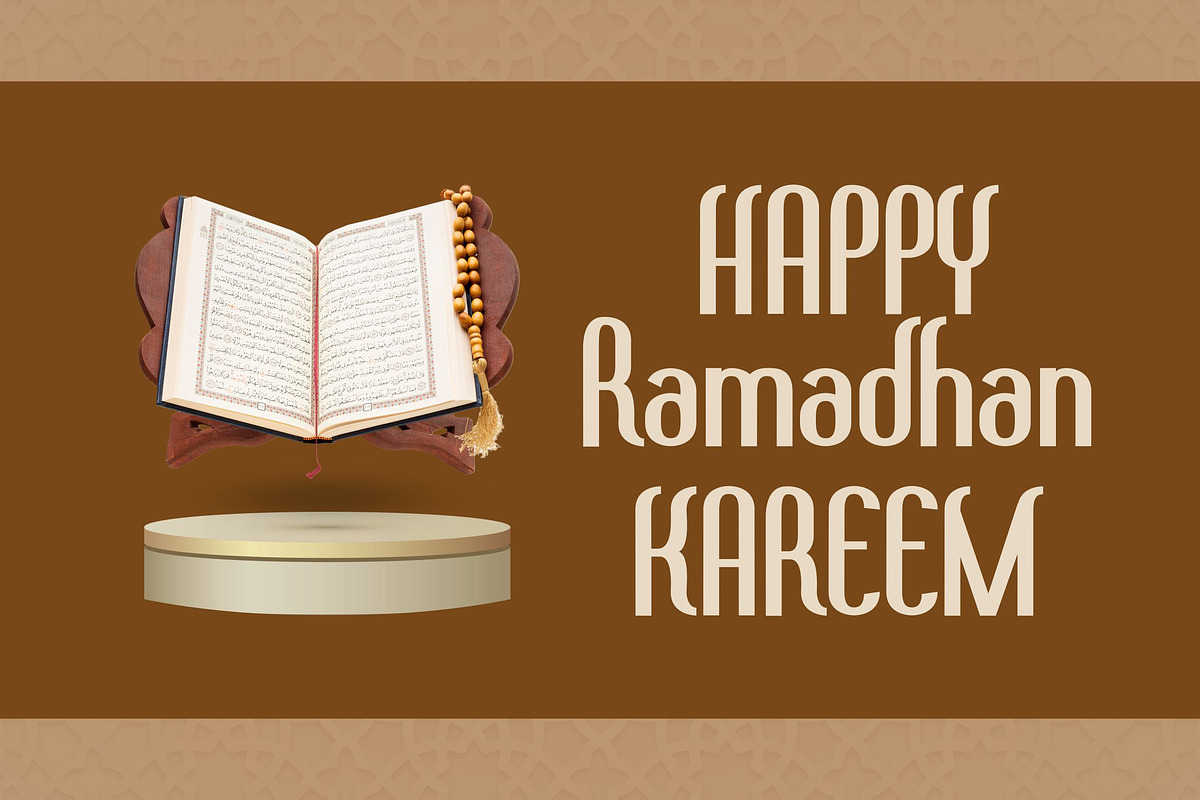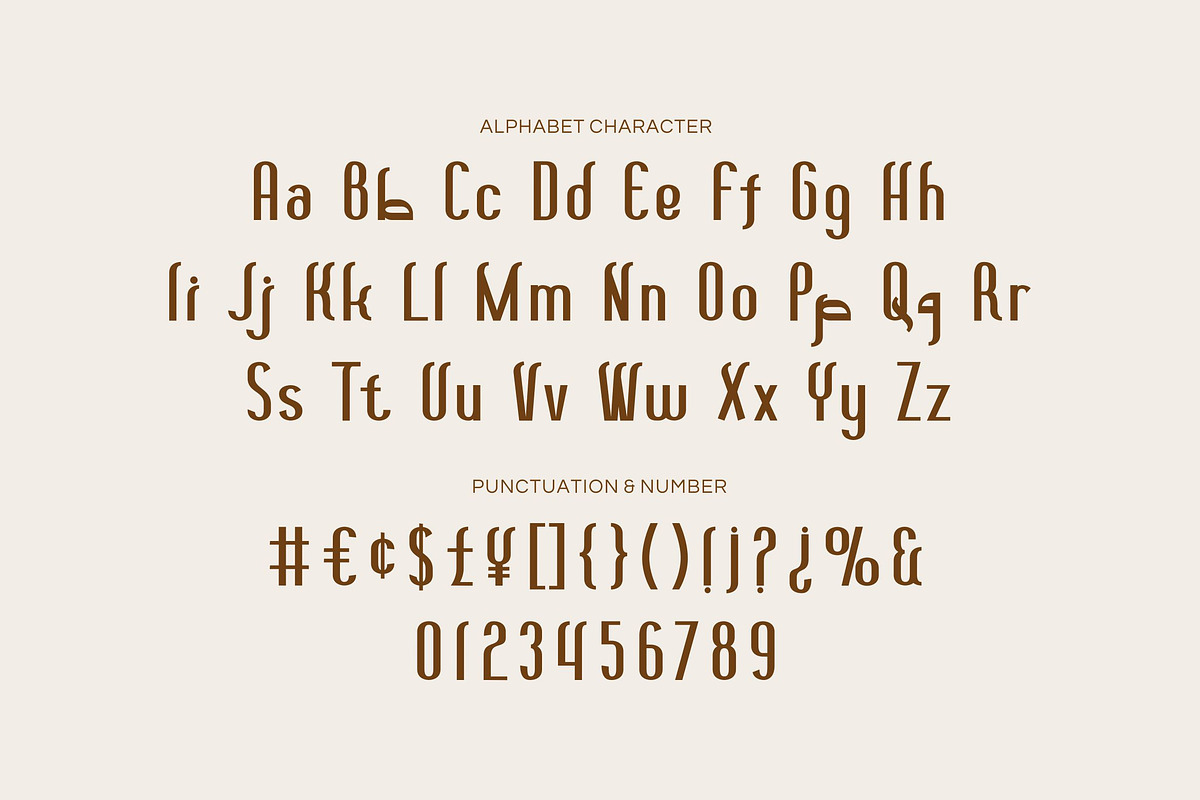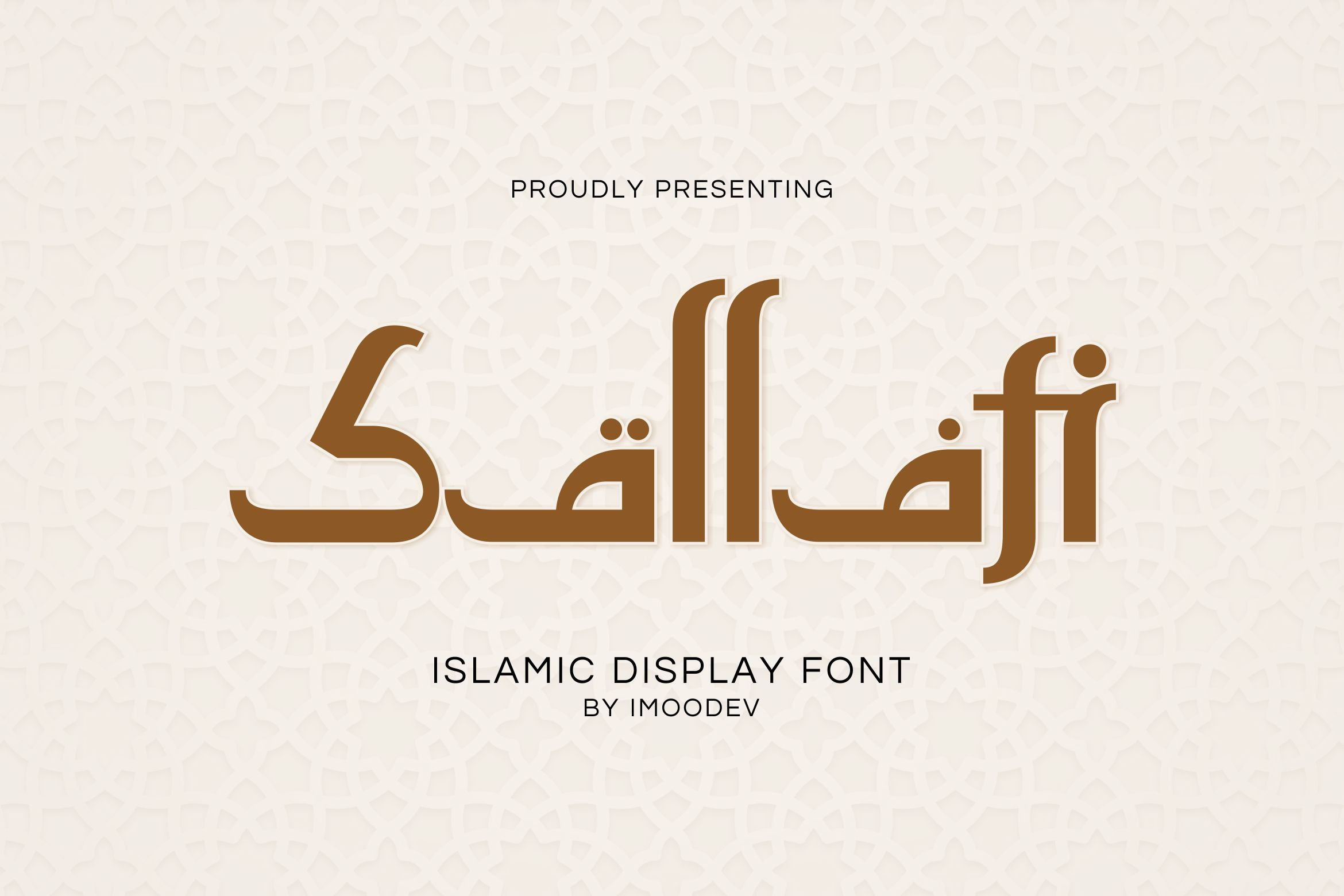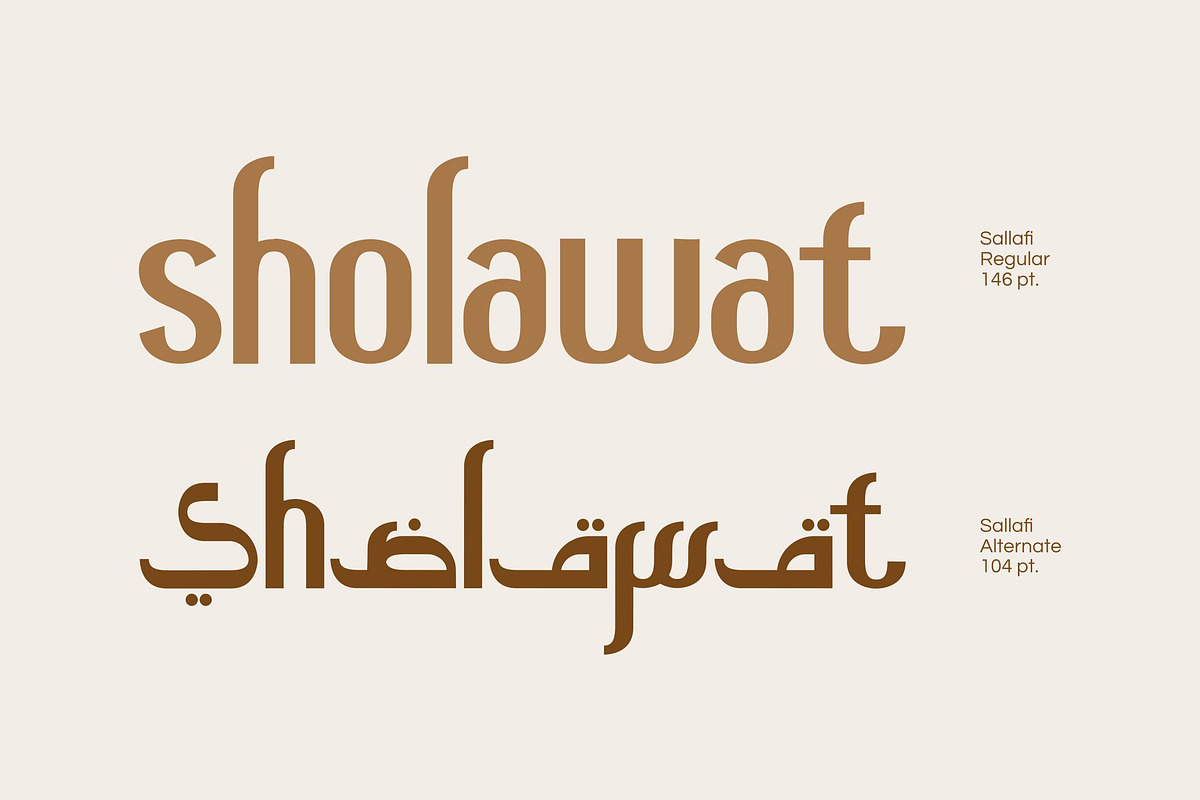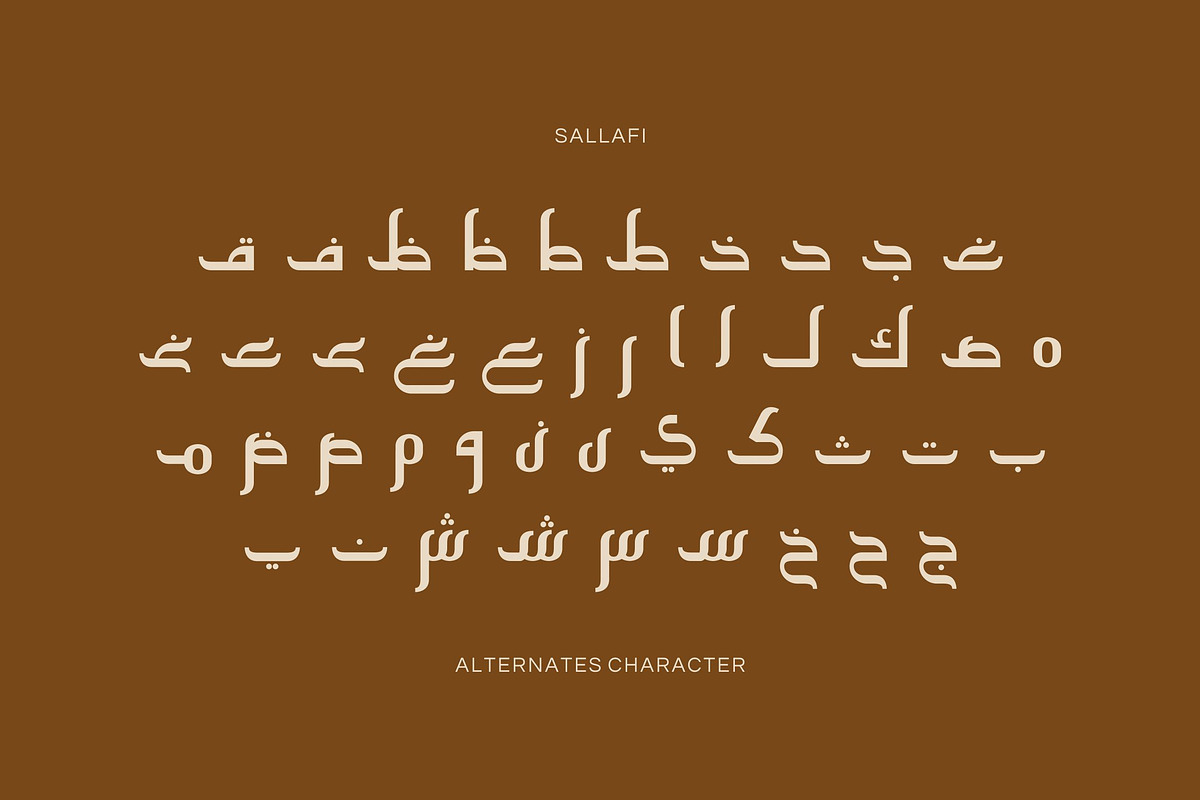
Sallafi - Arabic Font Style
Sallafi is a modern Islamic display font that blends geometric precision with graceful, flowing forms inspired by Arabic calligraphy. Its bold yet elegant strokes create a unique balance between tradition and contemporary design.
Perfect for eid and ramadan campaigns, halal/food and travel branding, packaging, editorial headlines, posters, invitations, and social content where you want a refined middle eastern flavor, and a variety of design or artistic projects that feature an islamic or cultural theme.
- Uppercase and Lowecase Characters.
- Numerals and Punctuations.
- Alternates and Ligatures.
- Multilingual Support.